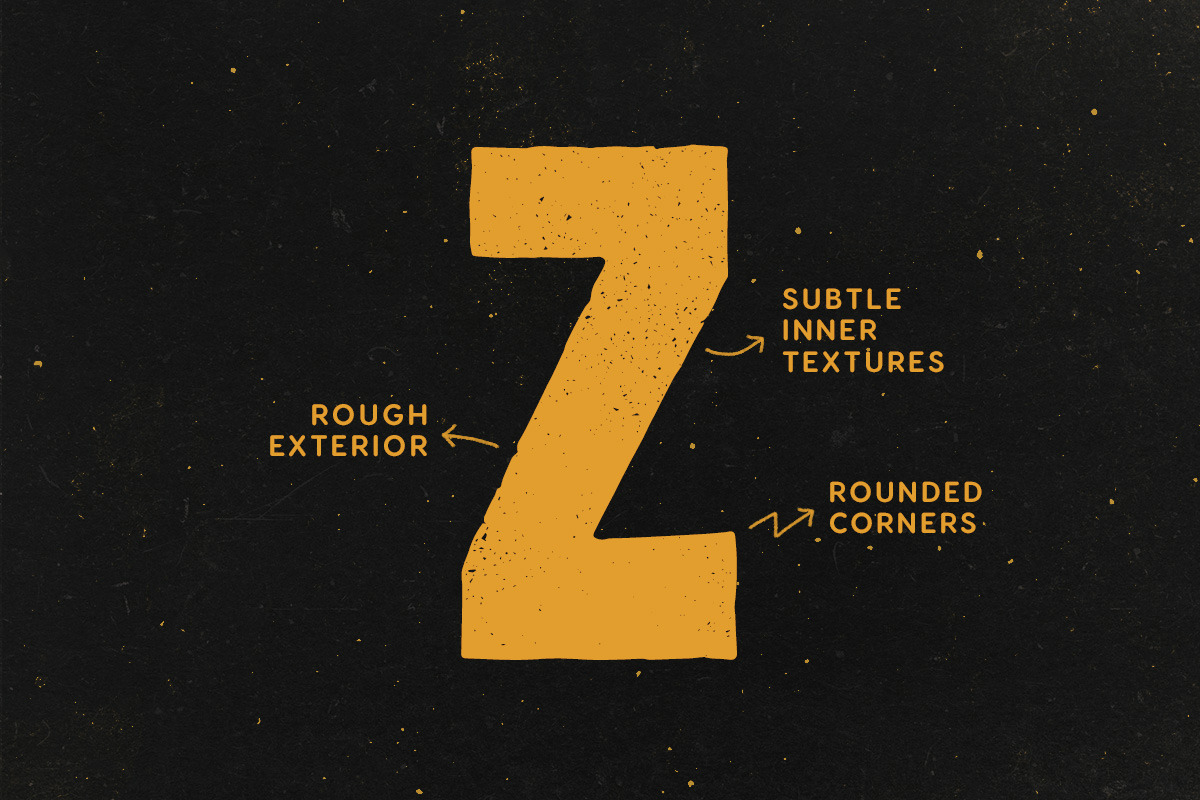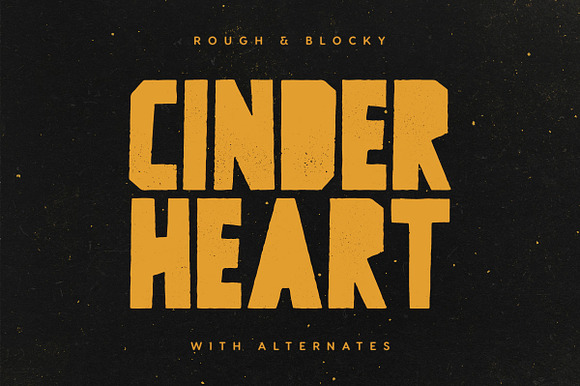
Cinderheart - A Rough & Blocky Font
Cinderheart is a display font with a rough outer texture and a subtle inner texture. It includes English uppercase letters, alternate letters, numbers and punctuation.
- It includes English uppercase letters, alternate letters, numbers and punctuation.
Cinderheart - A Rough & Blocky Font by Tugcu Design Co. fits naturally into Branding, posters, packaging, typography.